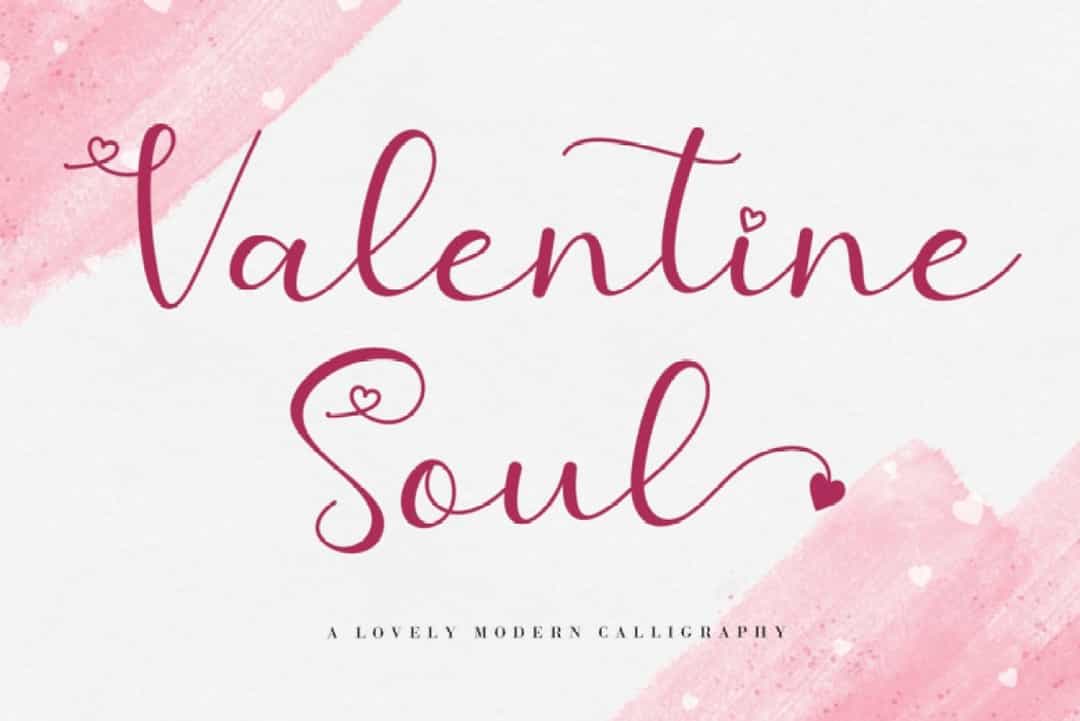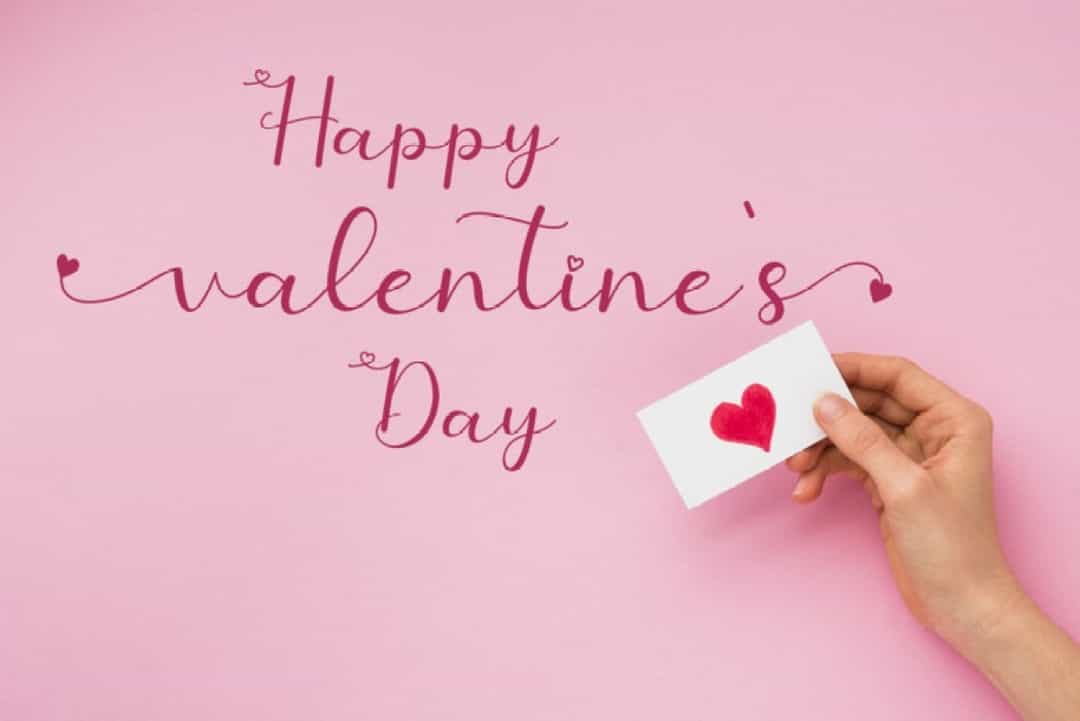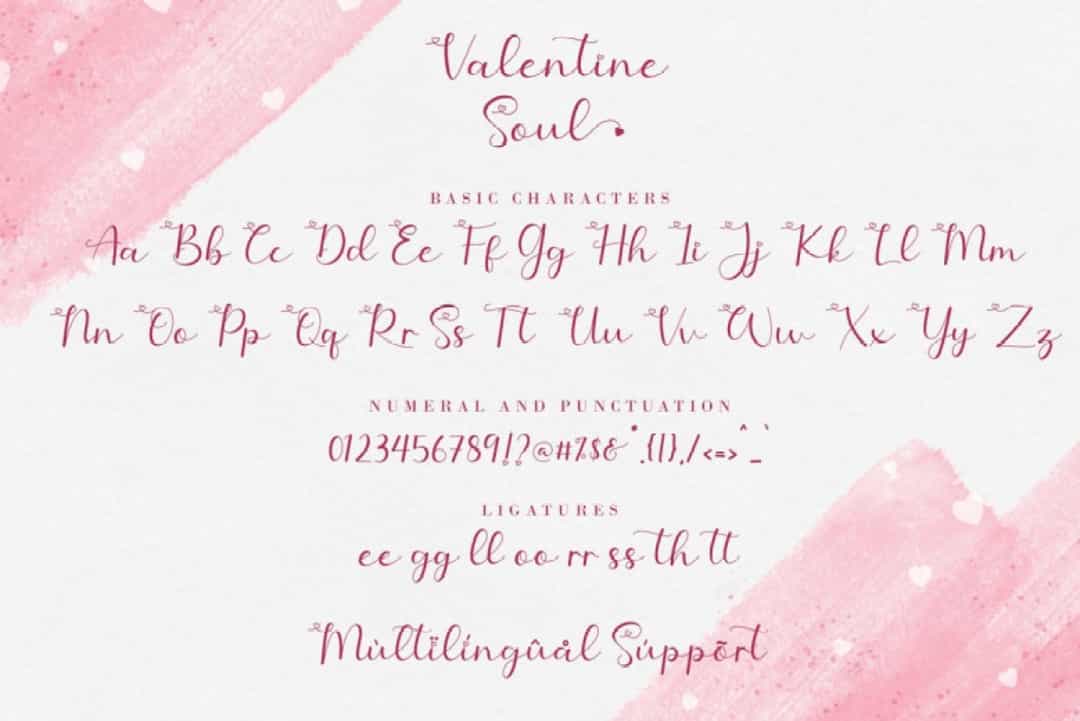
Valentine Soul is a unique handwritten font which is adorned with hearts. It is ideal to be used on Valentine’s day cards, thank you cards, greeting cards, business cards, logos and any other design project that involves writing.